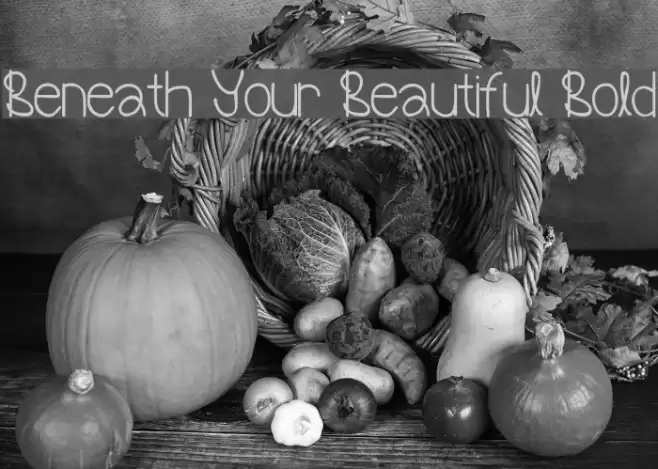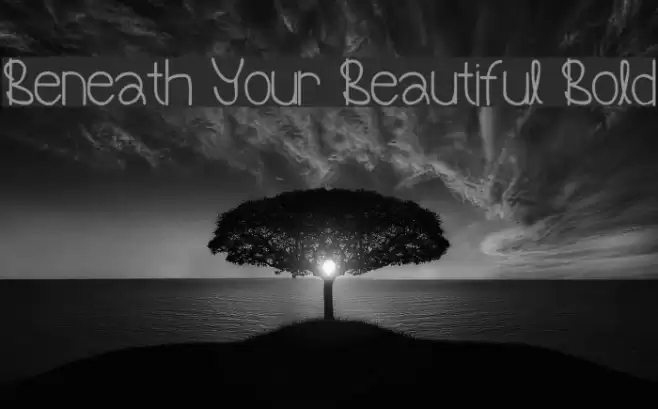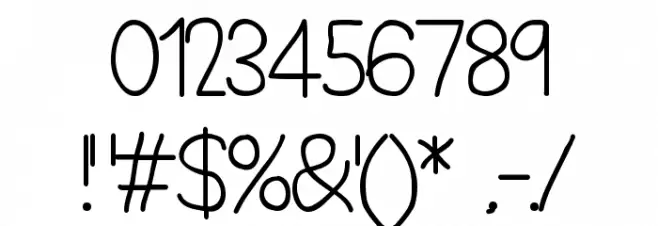
Beneath Your Beautiful Bold Font
Beneath Your Beautiful Bold Description
This font features a playful and whimsical design, characterized by its rounded, hand-drawn appearance. The letters have a consistent stroke width, giving it a uniform look while maintaining a casual and approachable feel. The uppercase and lowercase letters are distinct, with the uppercase having a slightly taller and more elongated form. The numbers and special characters follow the same playful style, making it suitable for creative and informal projects. The font's overall aesthetic is friendly and inviting, making it ideal for projects that aim to convey warmth and creativity.
A playful, hand-drawn font with rounded, consistent strokes from Uncategorized fonts.
- Proposed Projects: Ideal for children's books, greeting cards, playful branding, and creative posters.
- Overall Style: Playful
- Use Case: Headlines, Logos, Informal Text